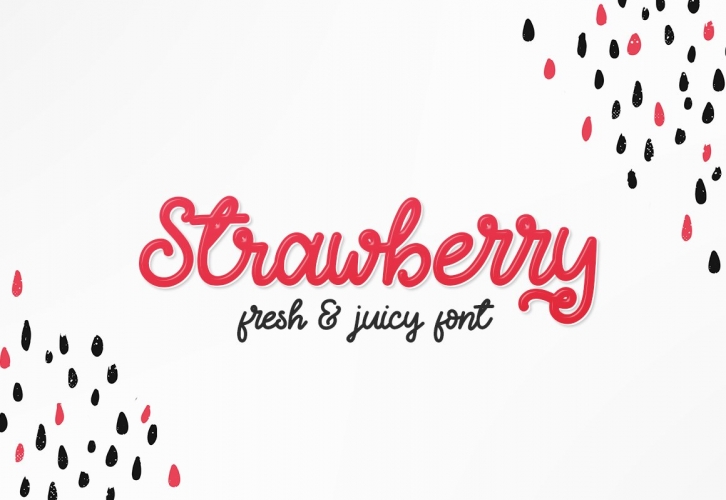
Strawberry is a fresh script font that includes:
- Lowercase and uppercase letters
- Latin extended characters, basic currencies, punctations, and numbers
- 16 stylistic alternates
- 28 contextual ligatures
- PUA encoded extra characters
Which international languges are supported?
The latin extended characters included in Strawberry are those that are used in the following languages: Albanian, Azerbaijani, Bosnian, Catalan, Croatian, Czech, Dutch, English, Esperanto, Estonian, Filipino, Finnish, French, German, Hungarian, Icelandic, Italian, Latvian, Lithuanian, Livonian, Maltese, Polish, Portuguese, Romanian, Slovak, Slovenian, Spanish, Swedish, Turkmen, Welsh.